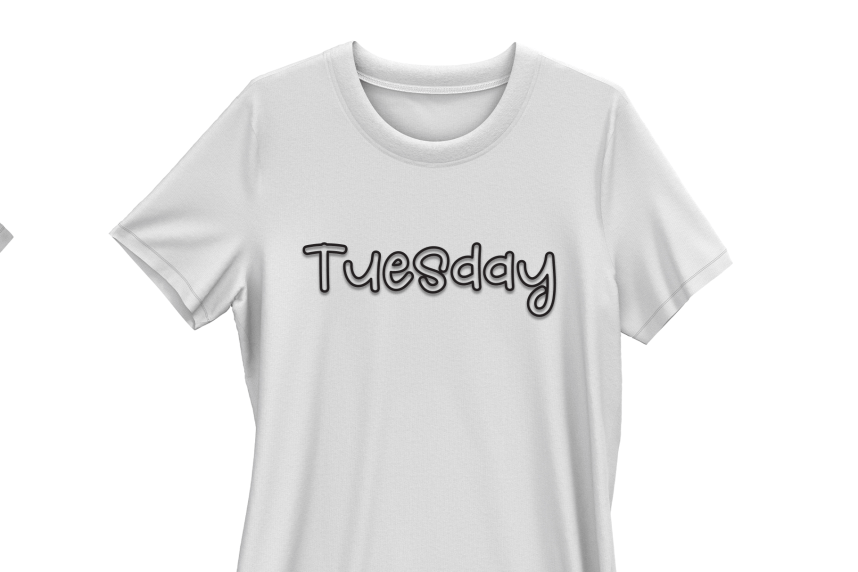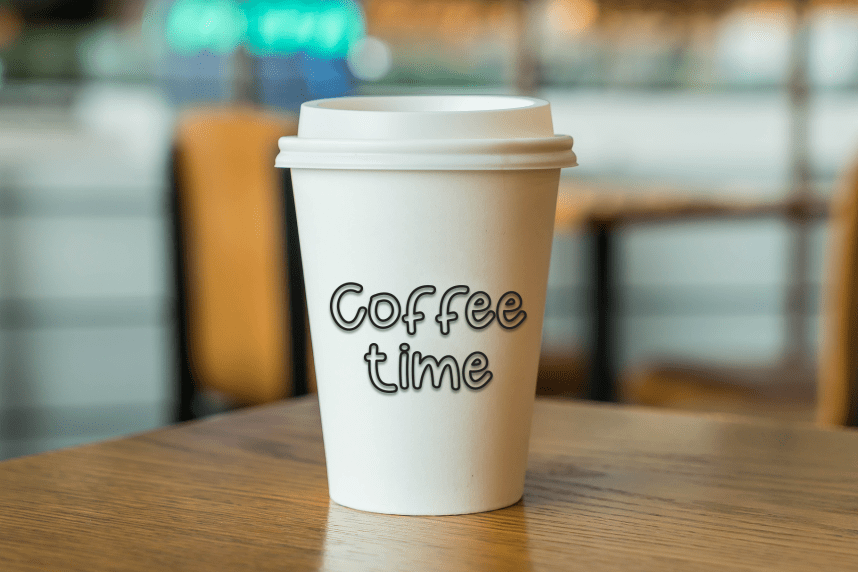
Mother Happy – Playful And Unique Font
Mother Happy – Playful And Unique Font is a sweet and friendly handwritten display font. Cute and fun, this font is ideal for writing wedding invitations, cards, or any other design that might need a playful touch!